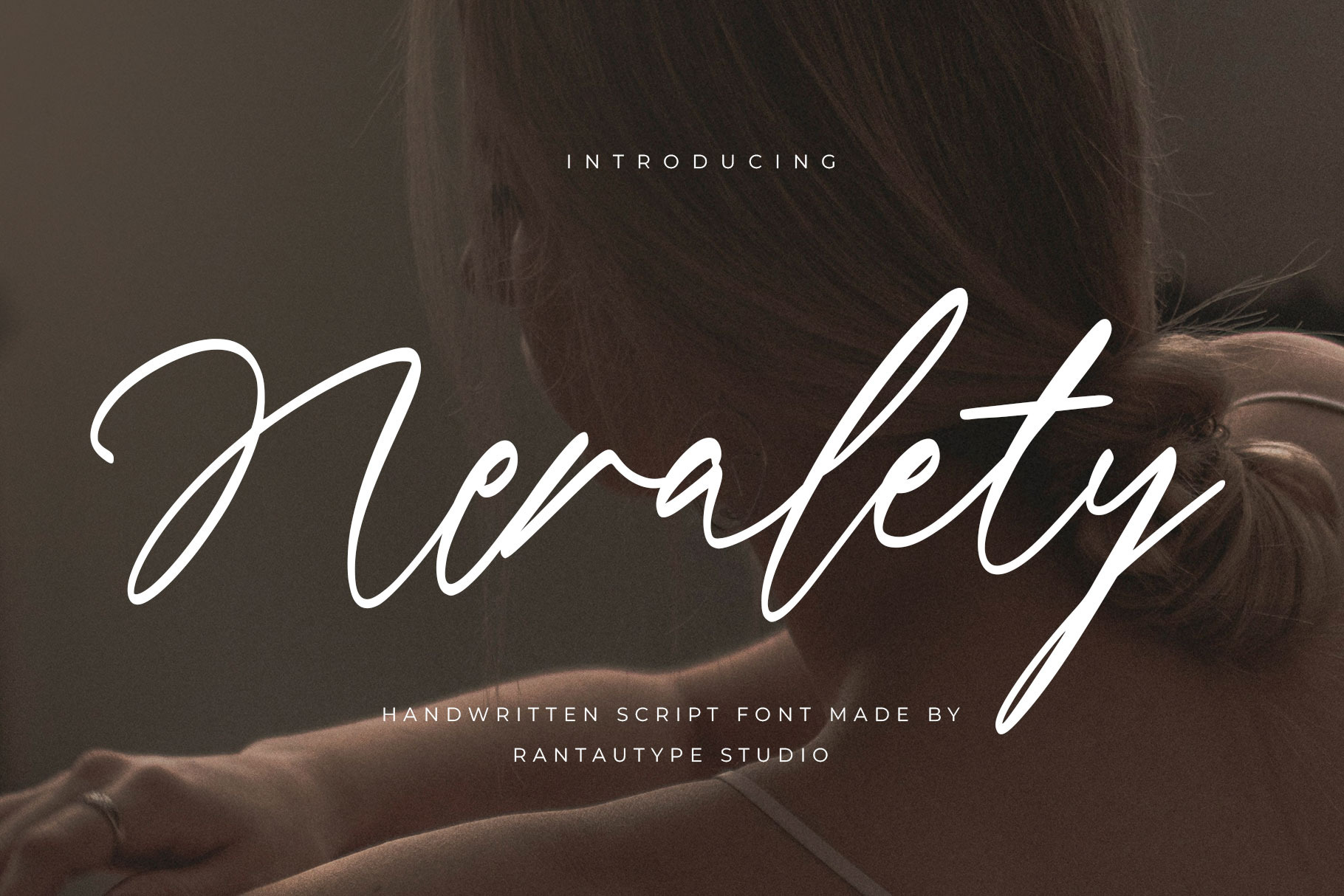
Neralety Handwritten Script Font
Neralety is handwritten font with fluid strokes and natural imperfections embrace modern and elegancy. Neralety is a perfectly choice for any creative endeavor, creating, modern, lifestyle design such as logotype, title, cover, branding, invitations, wedding designs, display and magazine, social media posts, advertisements, printed quotes, product packaging, corporate brand, product designs, labels, photography, watermarks, special events and any other project with handwritten feel.
- Alternate and ligature